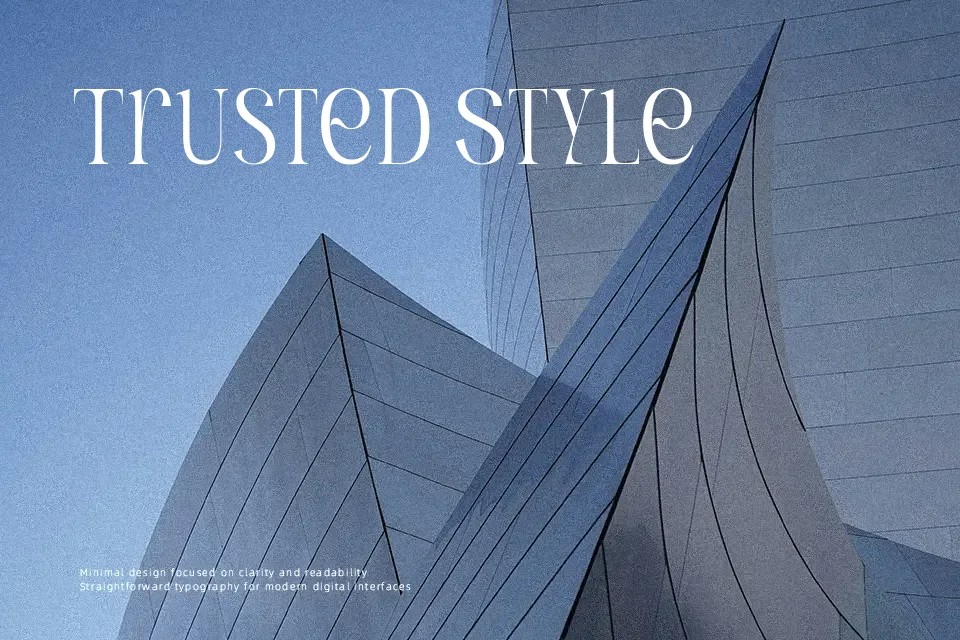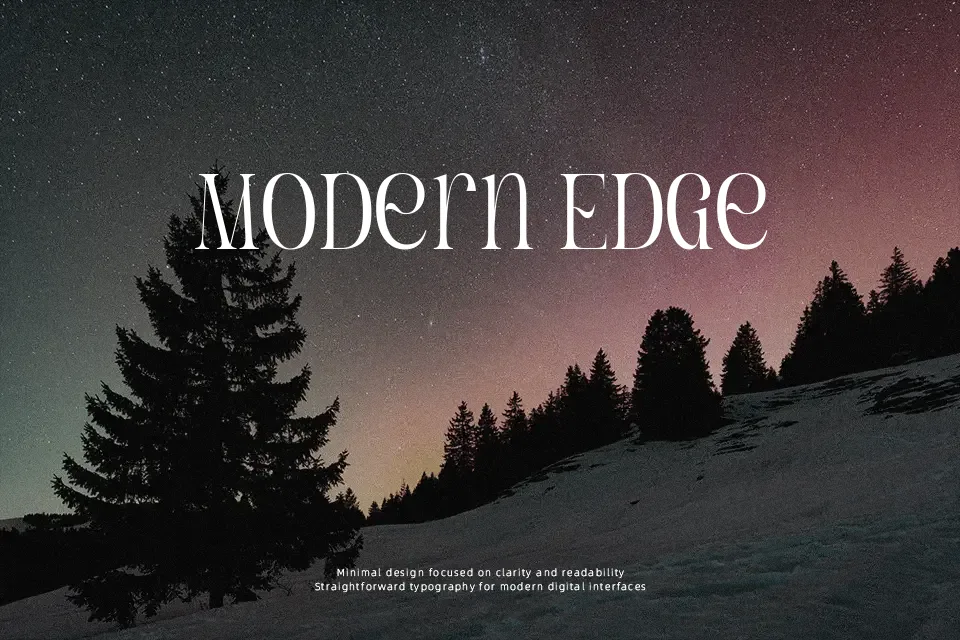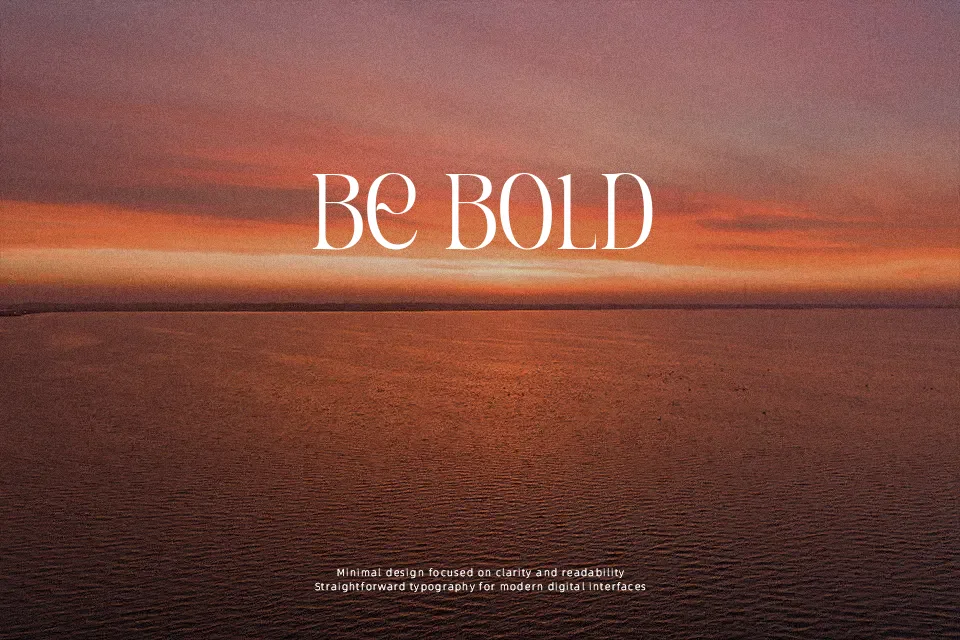
Argaka Fashion Font
Designed by Nirmana Visual
Tall, high-contrast serifs give Argaka Fashion a distinctly editorial feel — the kind of letterform you’d spot anchoring a fashion magazine cover or a luxury skincare label. Strokes shift between thin hairlines and bold verticals, creating visual tension that reads as both classic and current. The spacing feels intentional, lending headlines a composed, runway-ready presence. It holds up well on poster-sized headers, branding marks, and packaging where letterforms are displayed large. Smaller sizes strip away much of the contrast detail, making it unsuitable for body text or dense UI copy. For high-visibility display work in fashion, beauty, or lifestyle contexts, it delivers without overpromising.
Best For:- Fashion brand logo and wordmark design
– Editorial magazine or lookbook headers
– Luxury beauty and skincare packaging
– Social media title cards and promotional visuals
Not Ideal For:- Body text or long-form reading at small sizes
– Corporate reports or professional documentation
– UI labels and navigation elements
– Kids, gaming, or casual entertainment design
Perfect for branding, editorial, and fashion, with a classic and display style.